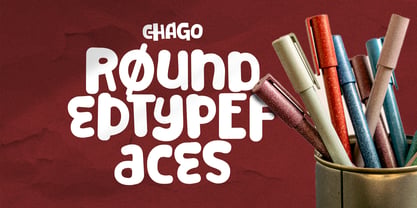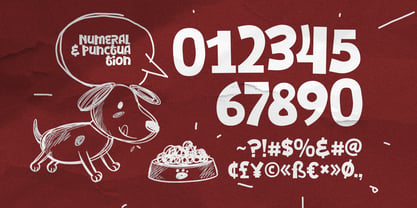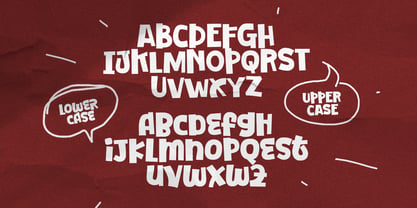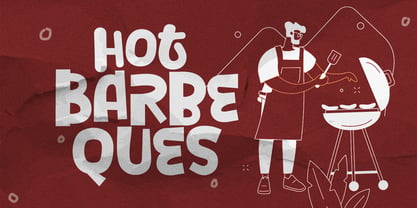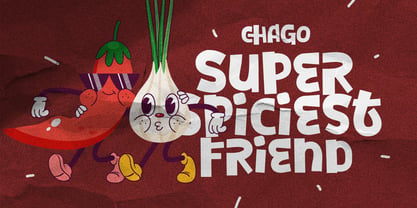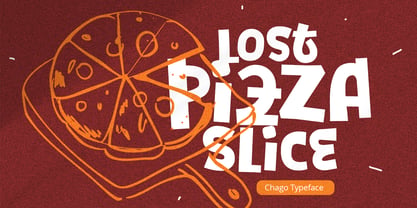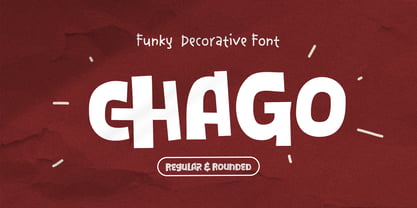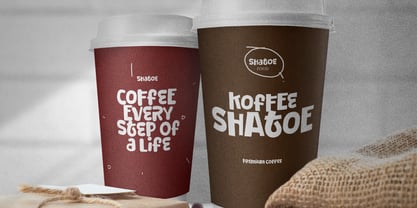
Chago
by Grontype
The Chago Font Family was designed by Jarnawi Saja and published by Grontype. Chago contains 2 styles and family package options.
Chago isn’t here to whisper—it’s here to shout in style. A bold, funky decorative font with a playful soul, Chago turns ordinary words into expressive visuals. Its modern, offbeat character brings a sense of movement and attitude, making every letter feel alive and full of energy. Crafted in two distinct styles—**Regular and Rounded**— Chago lets you shape the mood your way. Go sharp and confident, or smooth and friendly, all while keeping that unmistakable playful edge. Perfect for headers, banners, branding, and logos, Shato thrives in designs that dare to be different. It’s not just about being seen—it’s about being remembered. Let Chago speak loud, have fun, and steal the spotlight.
Designers: Jarnawi Saja
Current Foundry: Grontype